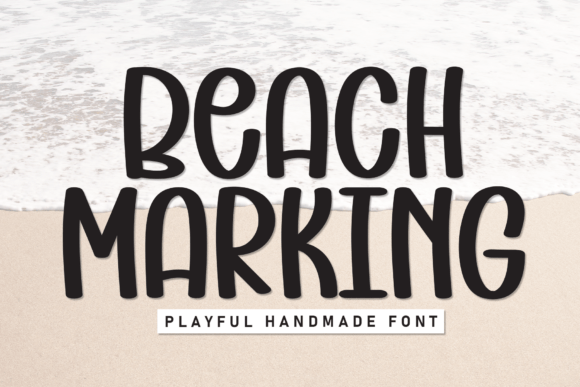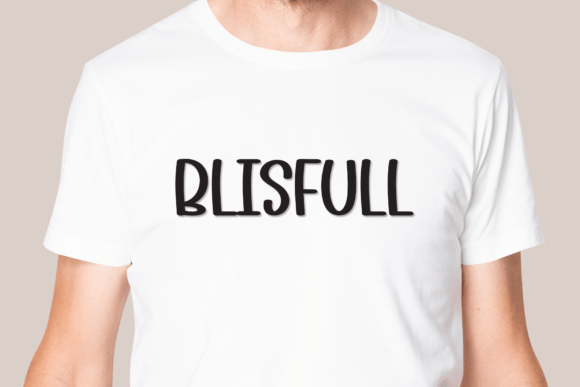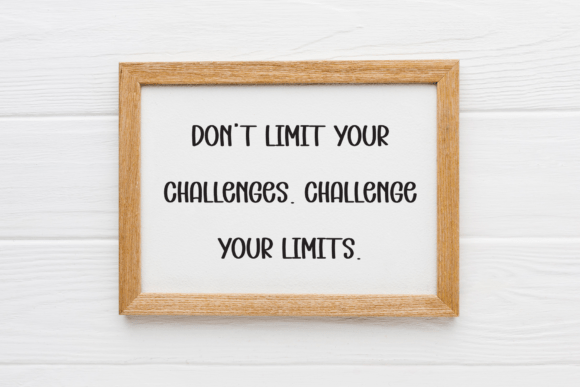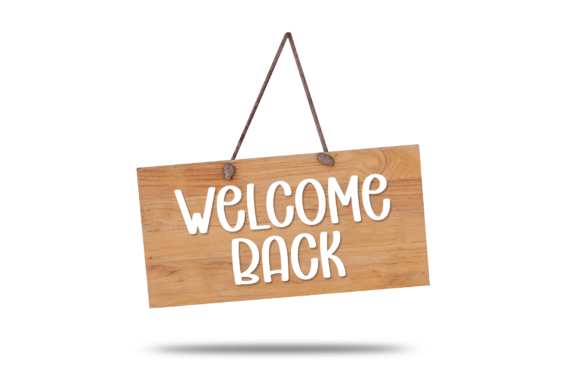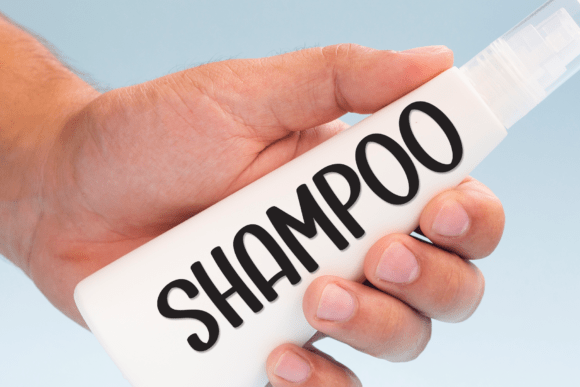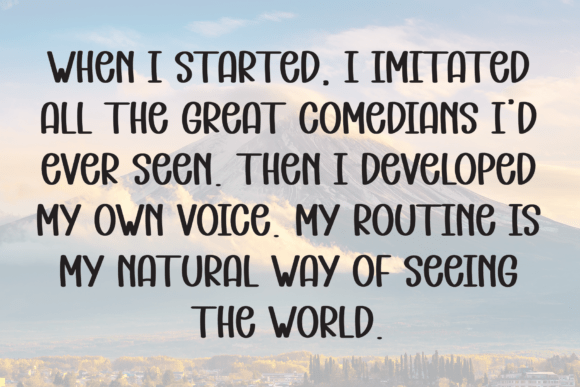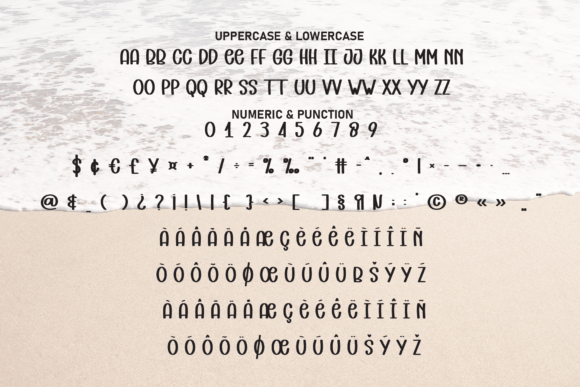
Have you ever stumbled upon a font that instantly transports you to a summer day by the ocean, with the warm sun on your skin and the sound of waves gently lapping at the shore? For designers, this feeling is a holy grail – a font that embodies the carefree spirit of the beach and infuses it into every design. Welcome to the enchanting world of Beach Marking Font, a handwritten display font that exudes warmth, friendliness, and a dash of playfulness.
Whether you’re crafting wedding invitations, designing greeting cards, or simply looking to add a personal touch to your projects, Beach Marking Font is an invaluable tool in your creative arsenal. Its unique blend of whimsy and sophistication makes it an ideal choice for designers seeking to add a touch of magic to their designs.
Key Features of Beach Marking Font
- Unique Character Set: This font features a custom-designed character set that includes beach-related symbols, such as surfboards, lifeguards, and beach balls, making it perfect for beach-themed designs.
- Legibility: Beach Marking Font is designed to be highly legible, even at small font sizes, ensuring that your designs remain clear and readable.
Designer Review: Beach Marking Font
Overall, I think the Beach Marking Font is a unique and visually appealing choice for any design project. It’s perfect for adding a laid-back, coastal vibe to your work. ✨ Here are some of its strengths:
- Unique aesthetic**: The Beach Marking Font has a distinctive, hand-drawn feel that sets it apart from more traditional fonts.
- High legibility**: Despite its irregularities, the font remains easy to read, making it suitable for a wide range of applications.
- Good for headings**: The font’s bold, expressive qualities make it ideal for headings and titles.
- Limited versatility**: The Beach Marking Font may not be the best choice for body text or large blocks of text, as its irregularities can become overwhelming.
- Not ideal for small sizes**: The font’s bold lines can become pixelated when scaled down, which may affect its overall appearance.
Overall, I think the Beach Marking Font is a great choice for designers who want to add a touch of personality and whimsy to their work. While it may have some limitations, its unique aesthetic and high legibility make it a valuable addition to any design library.
The Beach Marking Font is perfect for creating beach-themed designs, such as:
- Beach party invitations
- Summer sale promotions
- Beach-themed posters and flyers
- Water sports branding
For optimal results, use the Beach Marking Font in conjunction with other beach-themed graphics and colors.